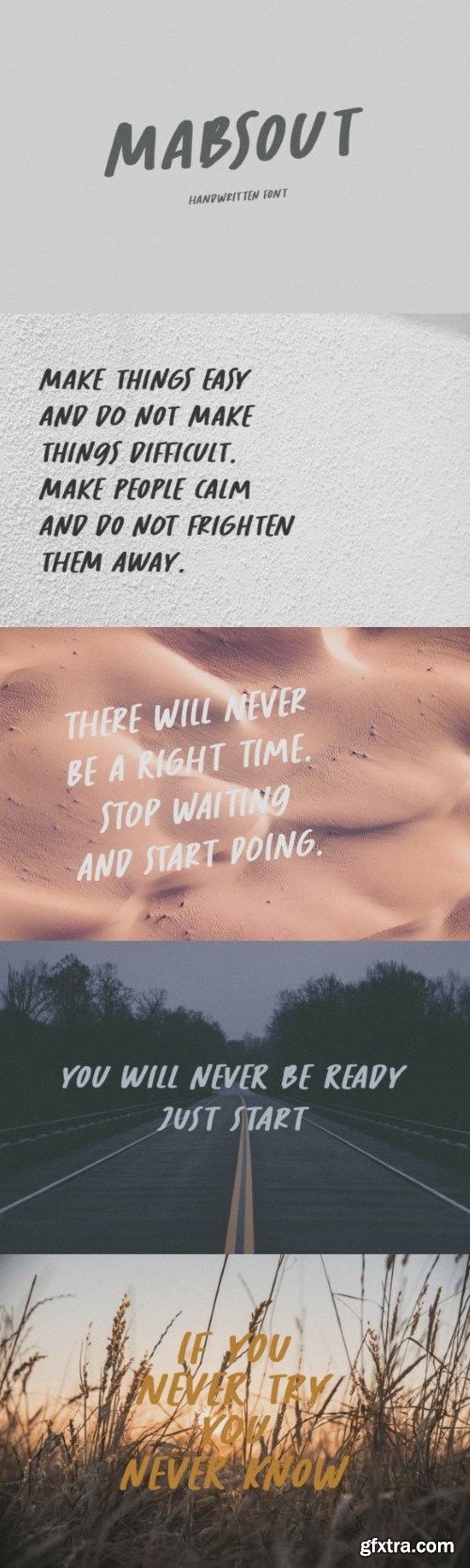
马布斯字体
Mabsout presents itself as a captivating all-caps handwritten font, exuding an expressive and distinctive style that commands attention. Crafted with the intention of capturing gazes, this font emerges as an ideal choice for a spectrum of visual mediums, including poster designs, flyers, and social media content. The inherent uniqueness and boldness of its characters empower Mabsout to infuse a personalized essence into your creative endeavors, thereby yielding an outcome that resonates—a visually compelling and unmistakably exceptional manifestation.